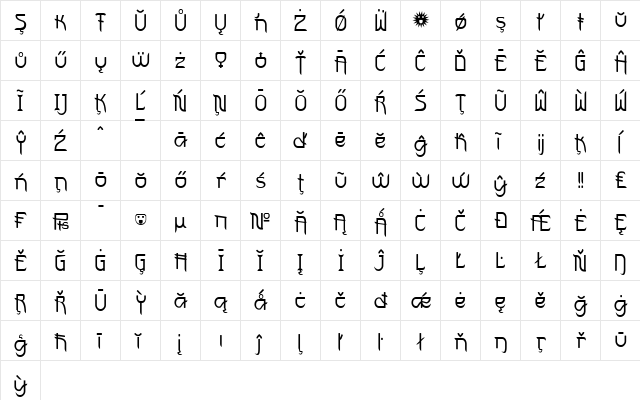
FuturexVariationSwishExtras VariationSwishExtras
| Designer | basic design by Graham Meade and Apostrophic Laboratories; this variation by Sara |
Design Context for FuturexVariationSwishExtras Typeface
FuturexVariationSwishExtras has a distinctly futuristic character, with geometric precision and clean angles that feel at home in technology, gaming, and sci-fi contexts.